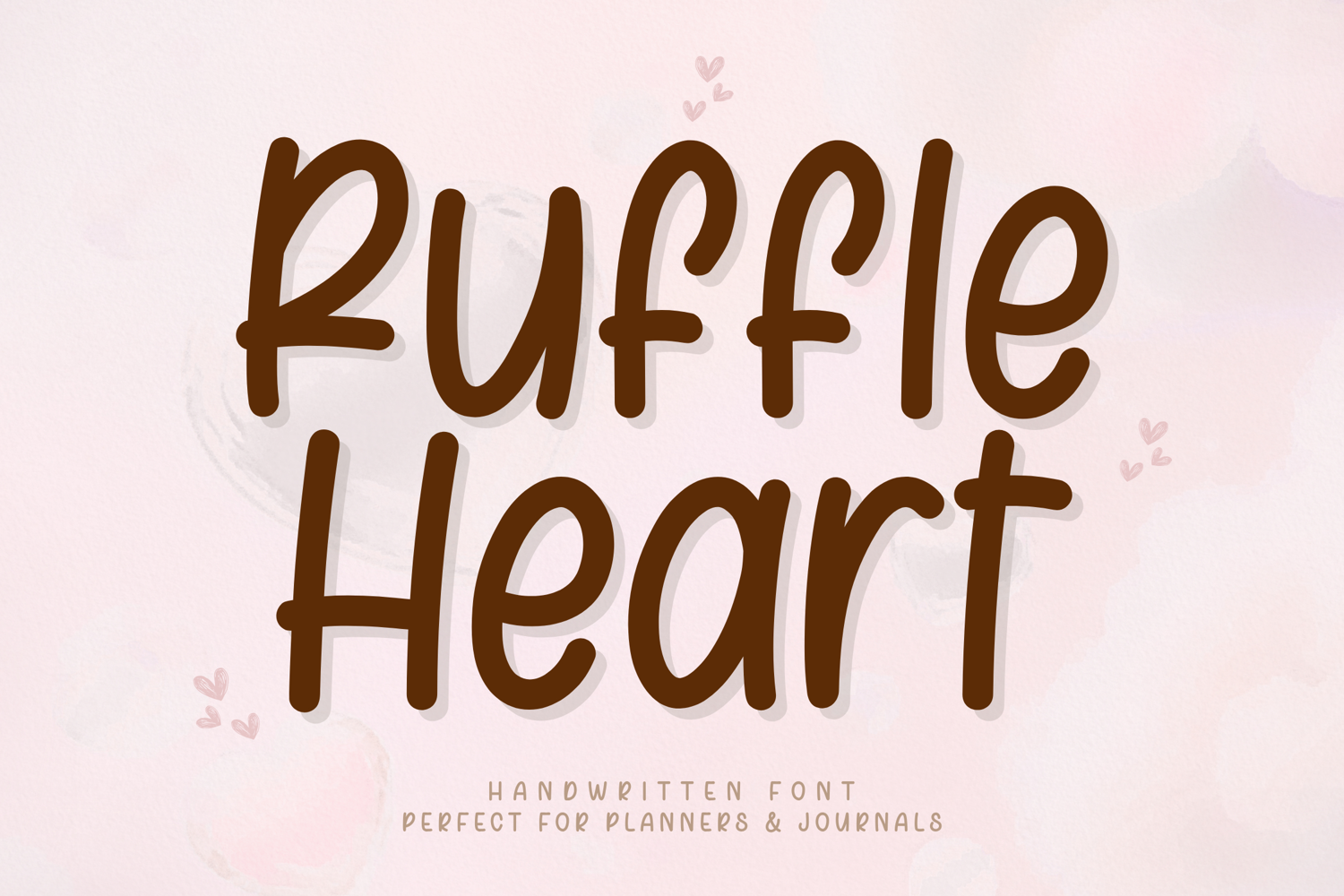
Ruffle Heart - Handwritten Font
Ruffle Heart – Handwritten Font
Ruffle Heart is a cute and playful handwritten font designed to bring a sweet and heartwarming feel to your creative projects. With its smooth curves and rounded letterforms, this font creates a natural handwritten style while maintaining excellent clarity and readability.
Featuring a bold and friendly look with a charming personality, Ruffle Heart works beautifully across a wide range of applications—from Cricut cutting projects and sticker designs to digital planners, merchandise, and social media content. Its clean and consistent strokes ensure smooth results for both writing and cutting, making it perfect for everyday creative use.
Ruffle Heart is designed with smooth, rounded strokes and a bold presence, making it easy to use for both beginners and professional designers.